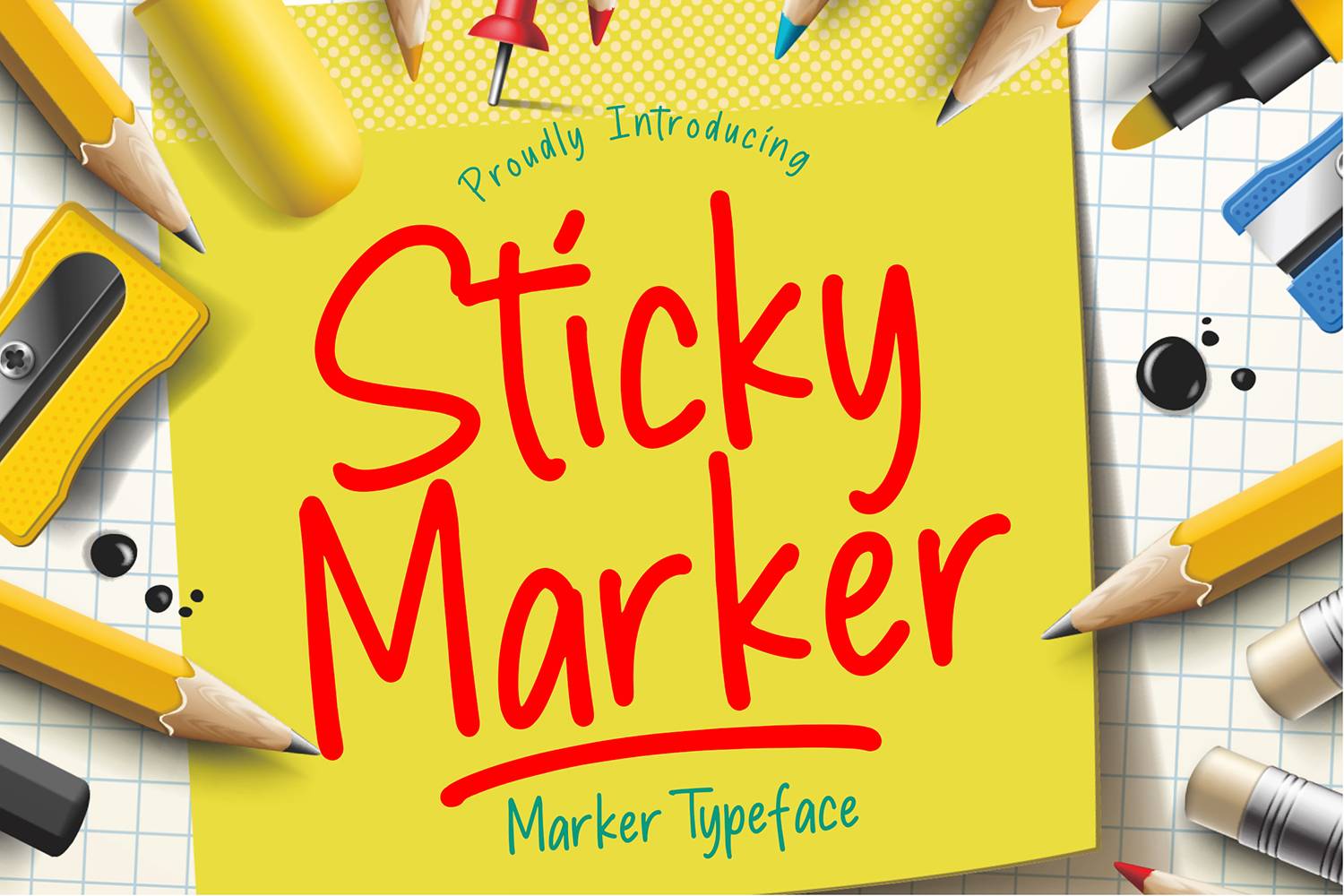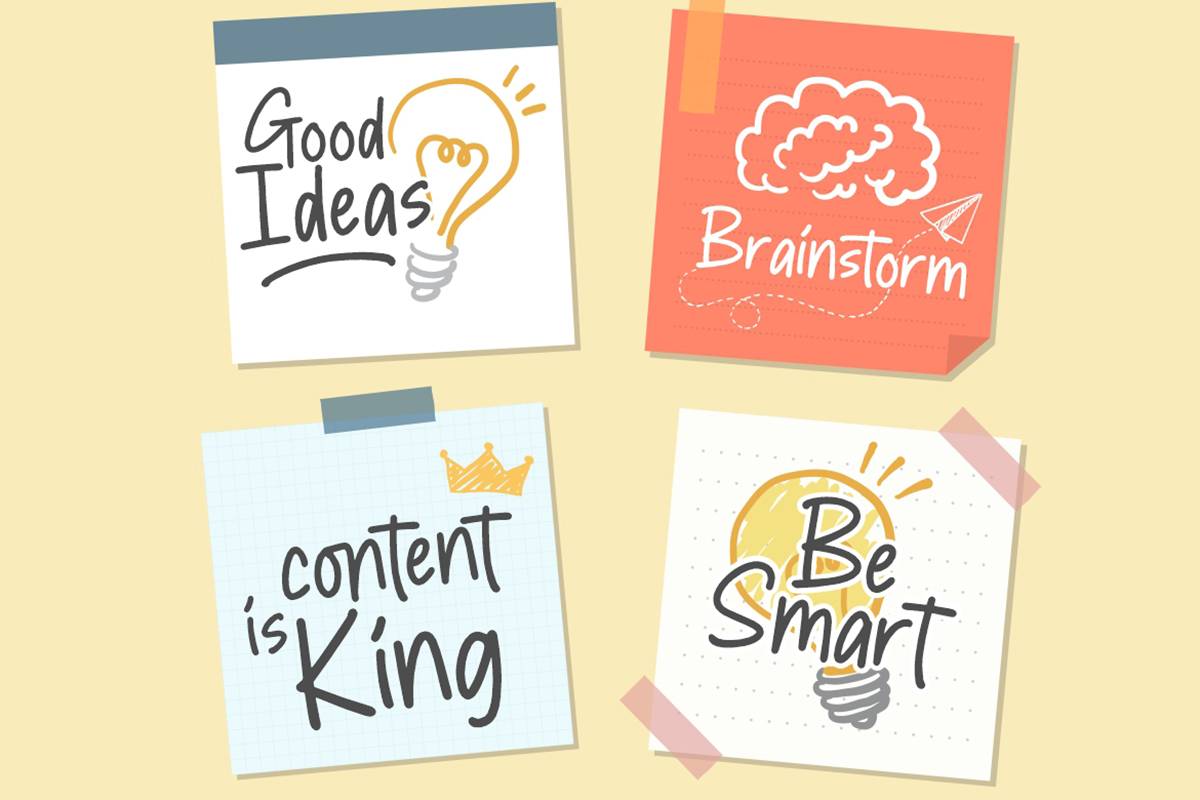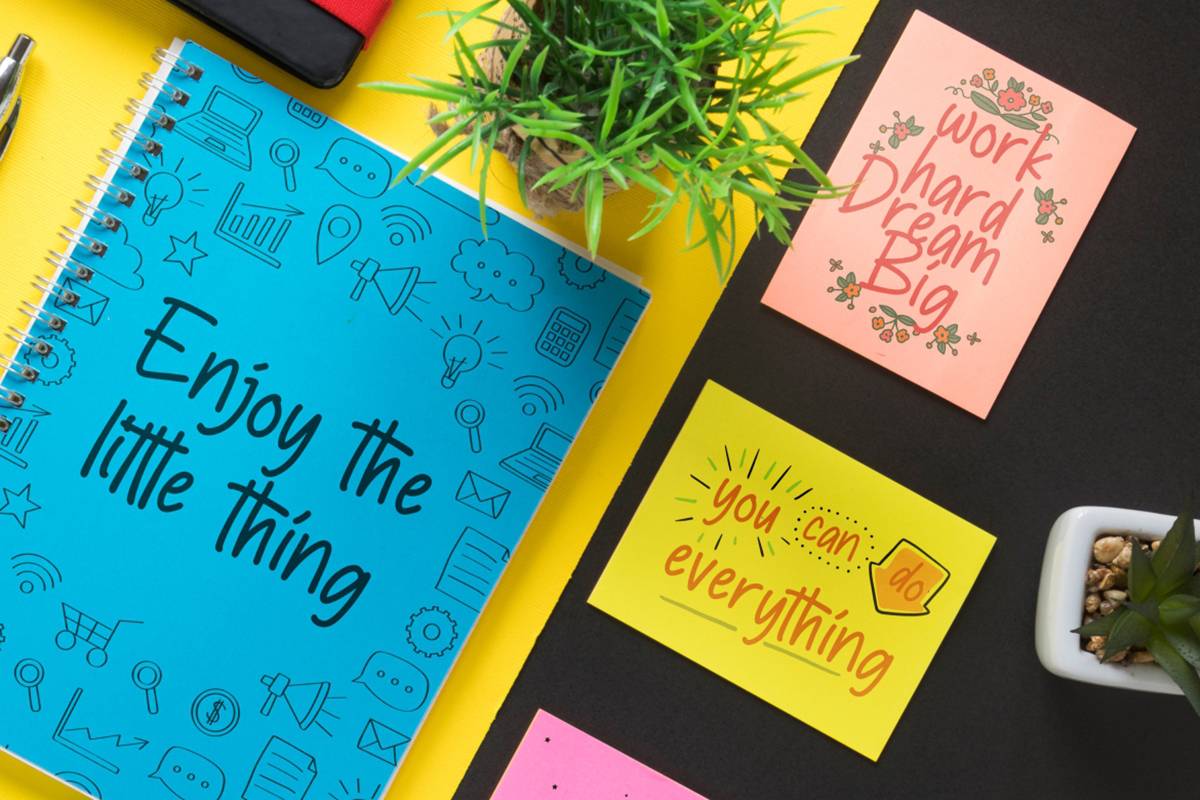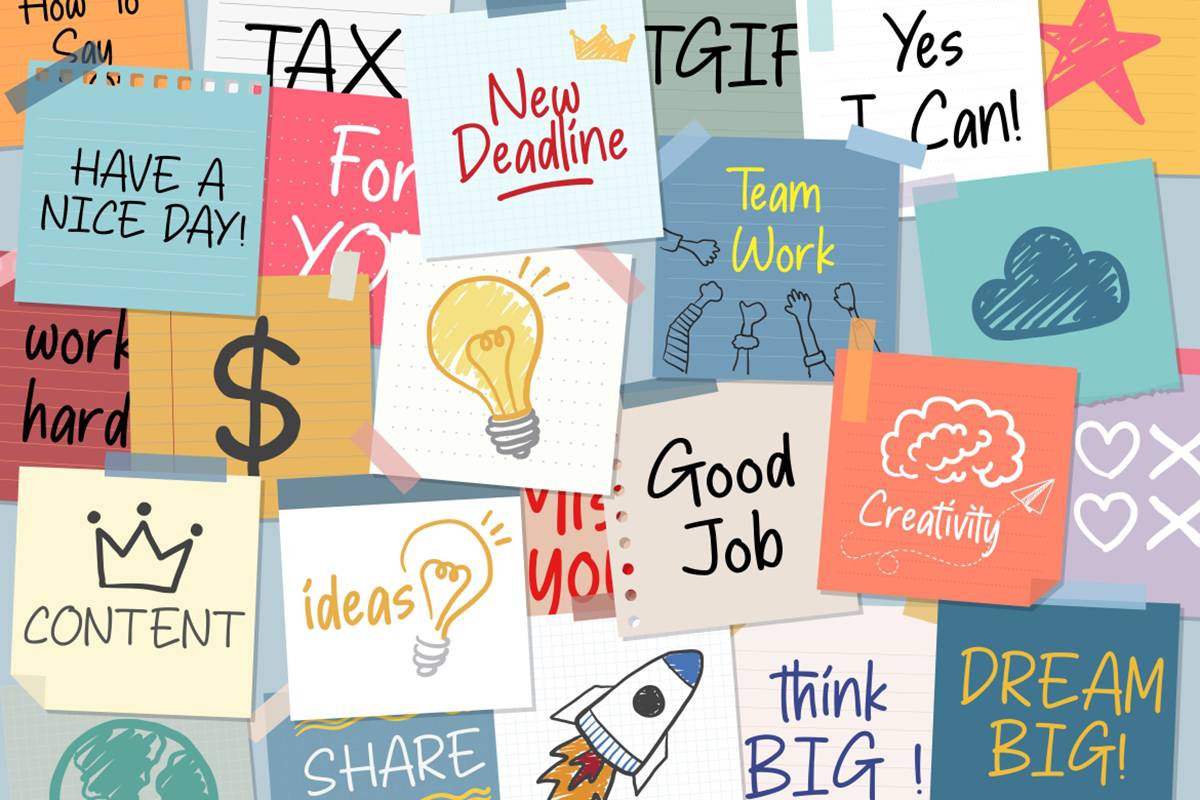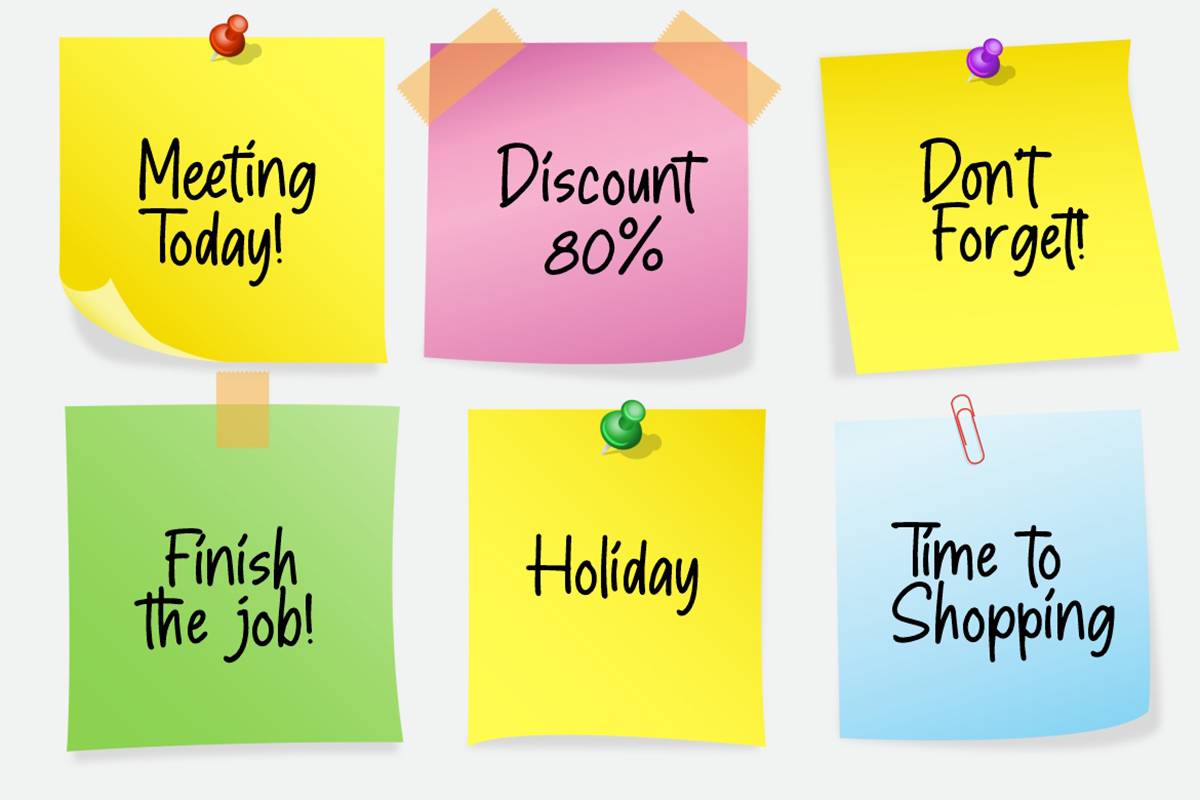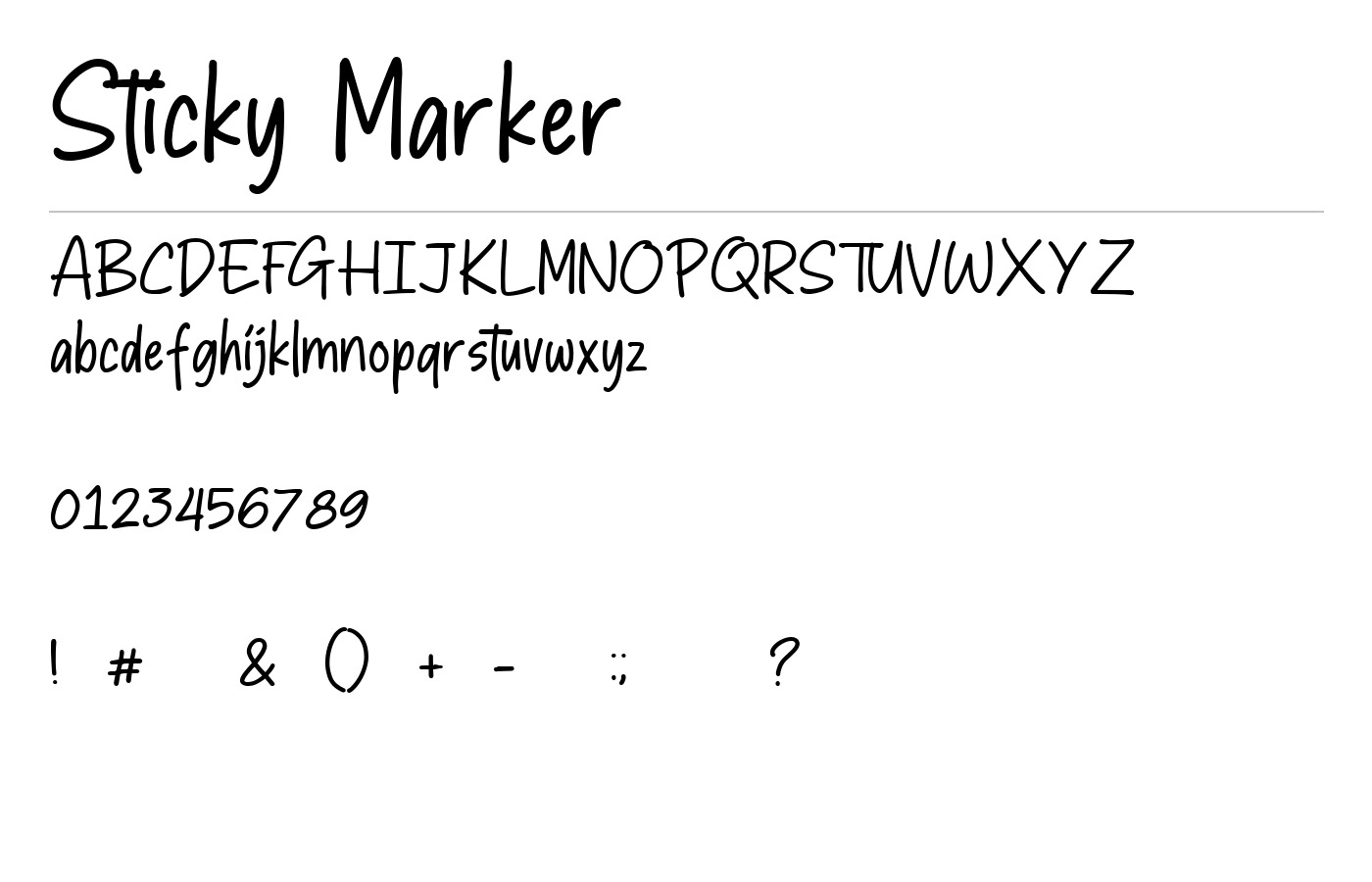
Sticky Marker Font is a casual, handwritten sans serif with a playful and personal feel. Its light weight, tall x-height, and slightly uneven strokes mimic natural marker pen writing, making it perfect for informal, creative, and friendly designs such as kids' projects, casual branding, and fun posters. This font works well where a relaxed, approachable tone is desired, adding warmth and personality to headlines and short texts.
Sticky Marker Font
About Sticky Marker Font